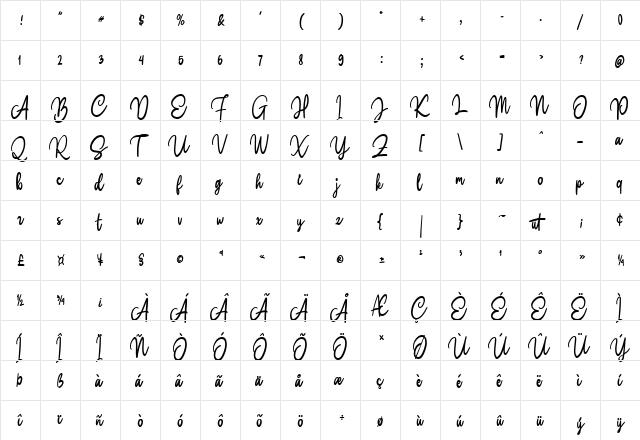
Claston Script Regular
Design Context for Claston Script Typeface
Claston Script flows with the natural rhythm of handwritten lettering, making it ideal for designs that call for warmth and personal expression.
Font Pairing: Combine Claston Script with a simple geometric sans for maximum contrast — the tension between flowing curves and clean structure is a classic typographic pairing.
Pro Tip: Use Claston Script for short runs of text — names, titles, or taglines. Extended body copy in script faces tires the eye quickly.